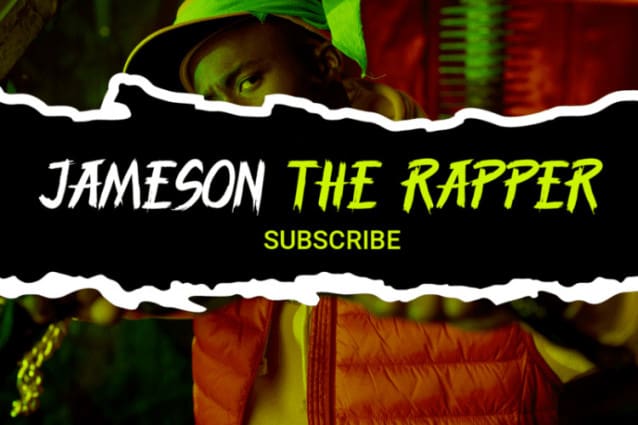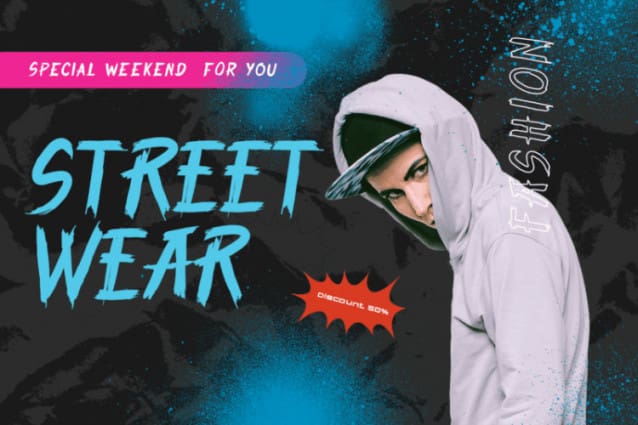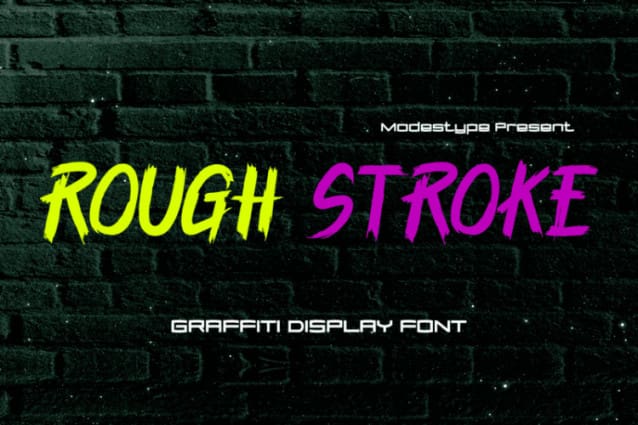
Rough Stroke Font is a bold, dynamic display font that truly captures the raw energy of street art. With jagged edges and brush-like strokes, Rough Stroke has an expressive, powerful look. Its irregular, hand-drawn style adds a rugged, authentic feel to any project. Therefore, it’s perfect for designs that need a bold, urban vibe. Additionally, the vibrant colors and textured appearance bring life to each word, ensuring a strong, unique personality.
Furthermore, Rough Stroke’s graffiti-inspired design adds a rebellious, creative edge to any layout. Its rough strokes and sharp angles mimic the energetic style of spray-painted street art. Moreover, Rough Stroke works well in both digital and print media, making it ideal for posters, social media graphics, branding, and more. This font does more than convey words; it also expresses an attitude, making it perfect for designs that need a strong impact.